If you haven’t heard of color fonts, or SVG fonts, yet, you you need to jump on the boat! These fonts are the next big thing, and I’ll show you why with this list of bright color fonts.
What are color fonts anyway? They function the way a normal font does, just download and install on you computer as usual. Make sure you have the proper software to support this font type, and off you go! Colors and any transparency are embedded right into the font itself, so no need to add special effects. They’re already there!
For example, have a look at the “Use Your Imagination” font below. That transparency is actually inherent in the font! No need to mess with creating transparency through layers, and no need to place individual letters like you would have to with individual transparent cliparts or SVGs. This types up just like a normal font, but with all the cool perks included.
Now for some truly unique bright color fonts!
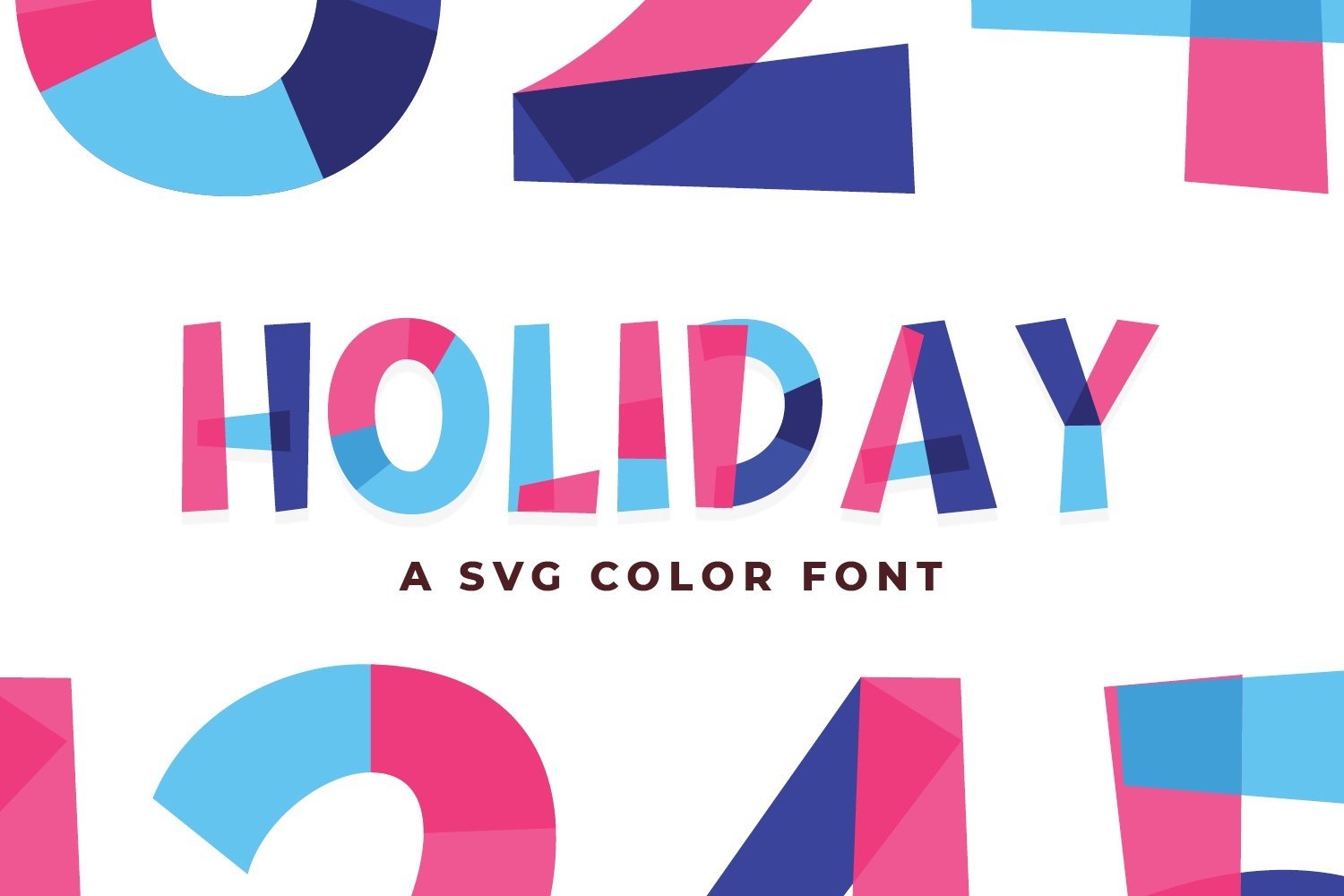
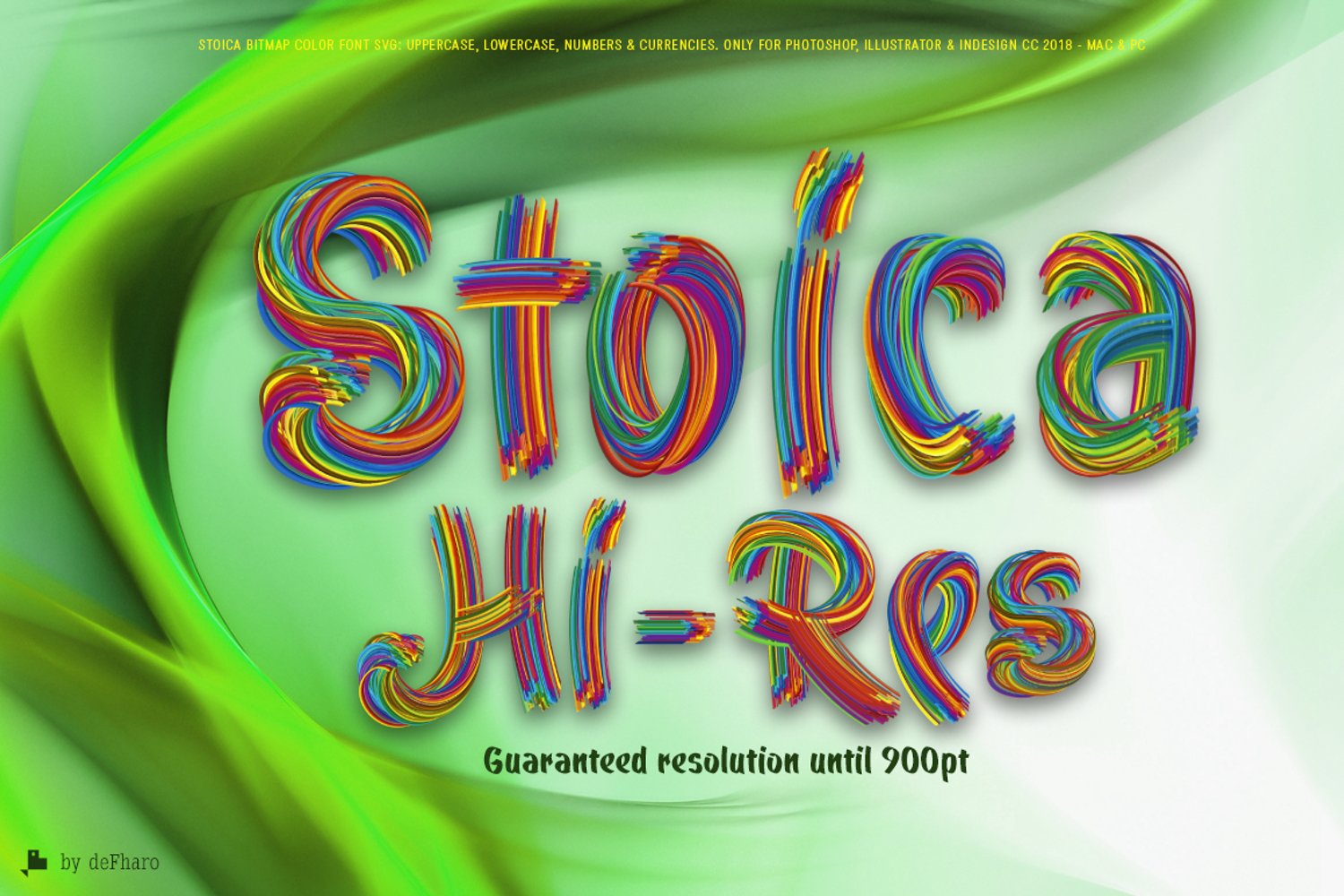
So which font is your favorite? I’m really loving Stoica Hi-Res right now! My kids would love the colorful spaghetti kind of vibe it’s giving off!